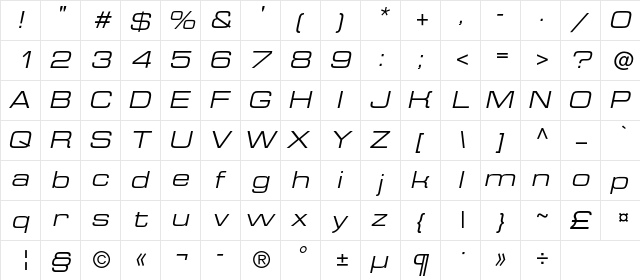
EurofontExtendedC Italic
Design Context for EurofontExtendedC Typeface
EurofontExtendedC is a composed and adaptable typeface that performs quietly and consistently across a wide range of design contexts. The slanted form adds forward momentum and visual energy.
Pro Tip: Try EurofontExtendedC for annotation and caption copy alongside an upright companion — the contrast in angle creates a dynamic but ordered typographic system.